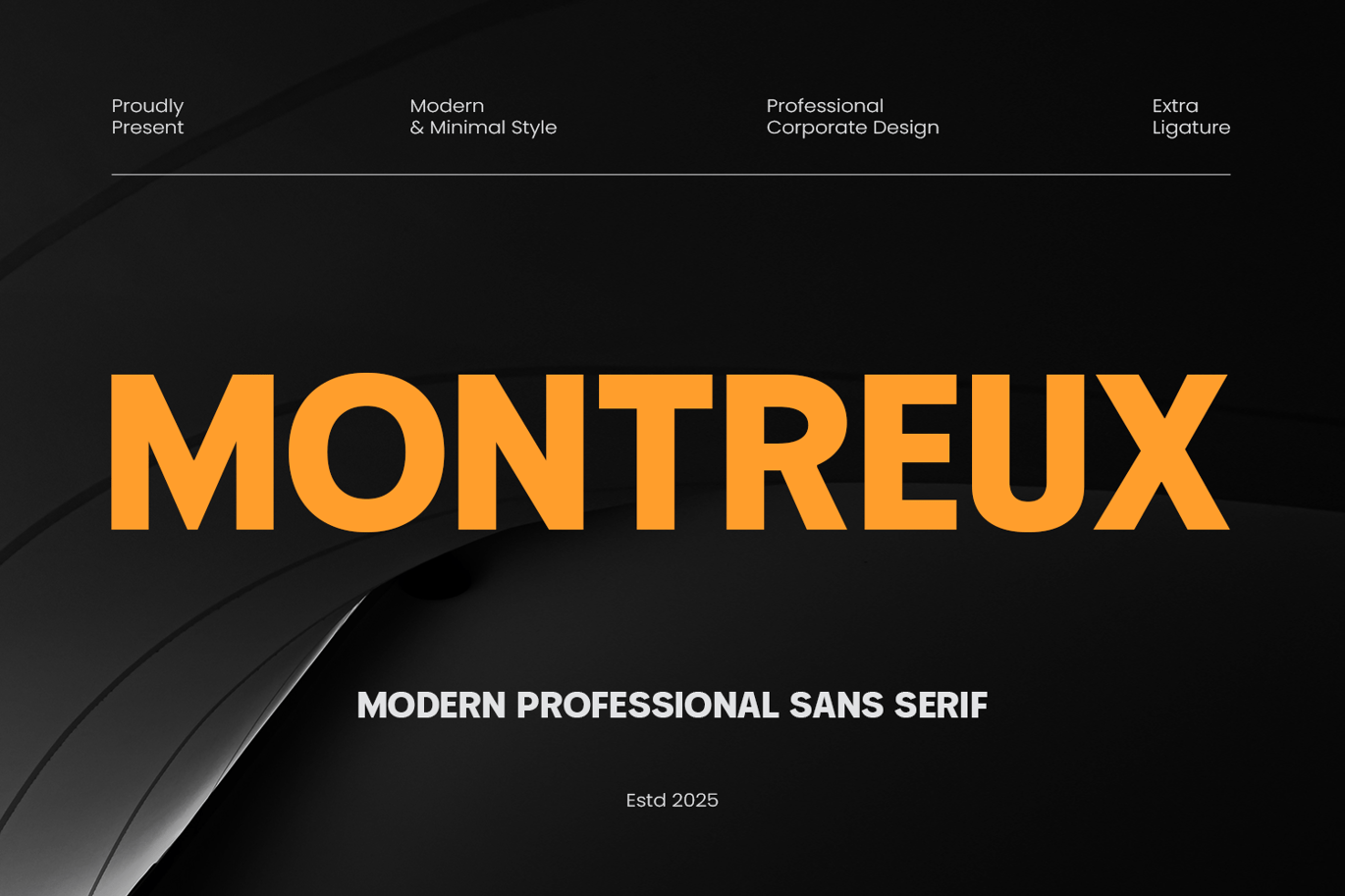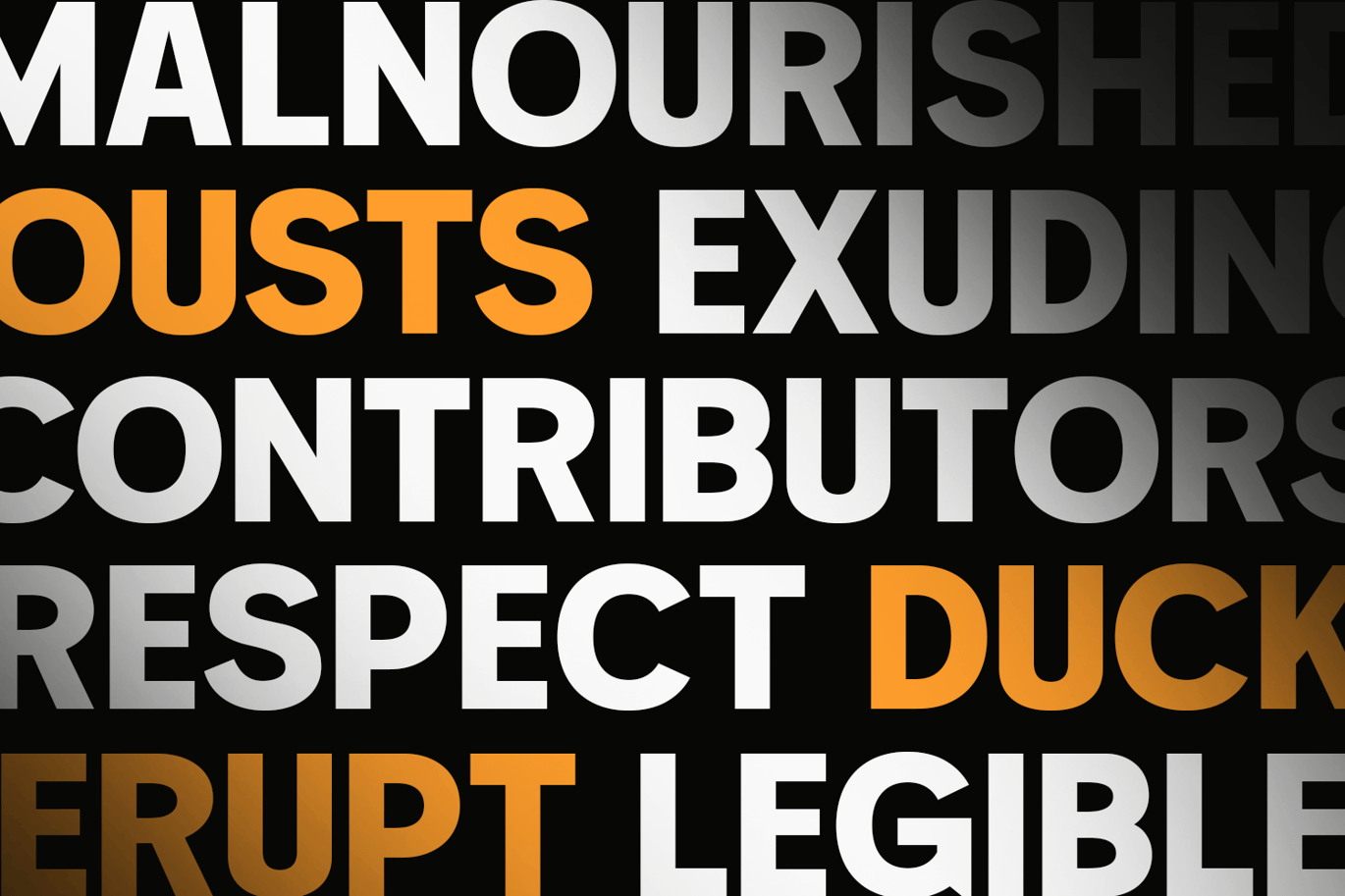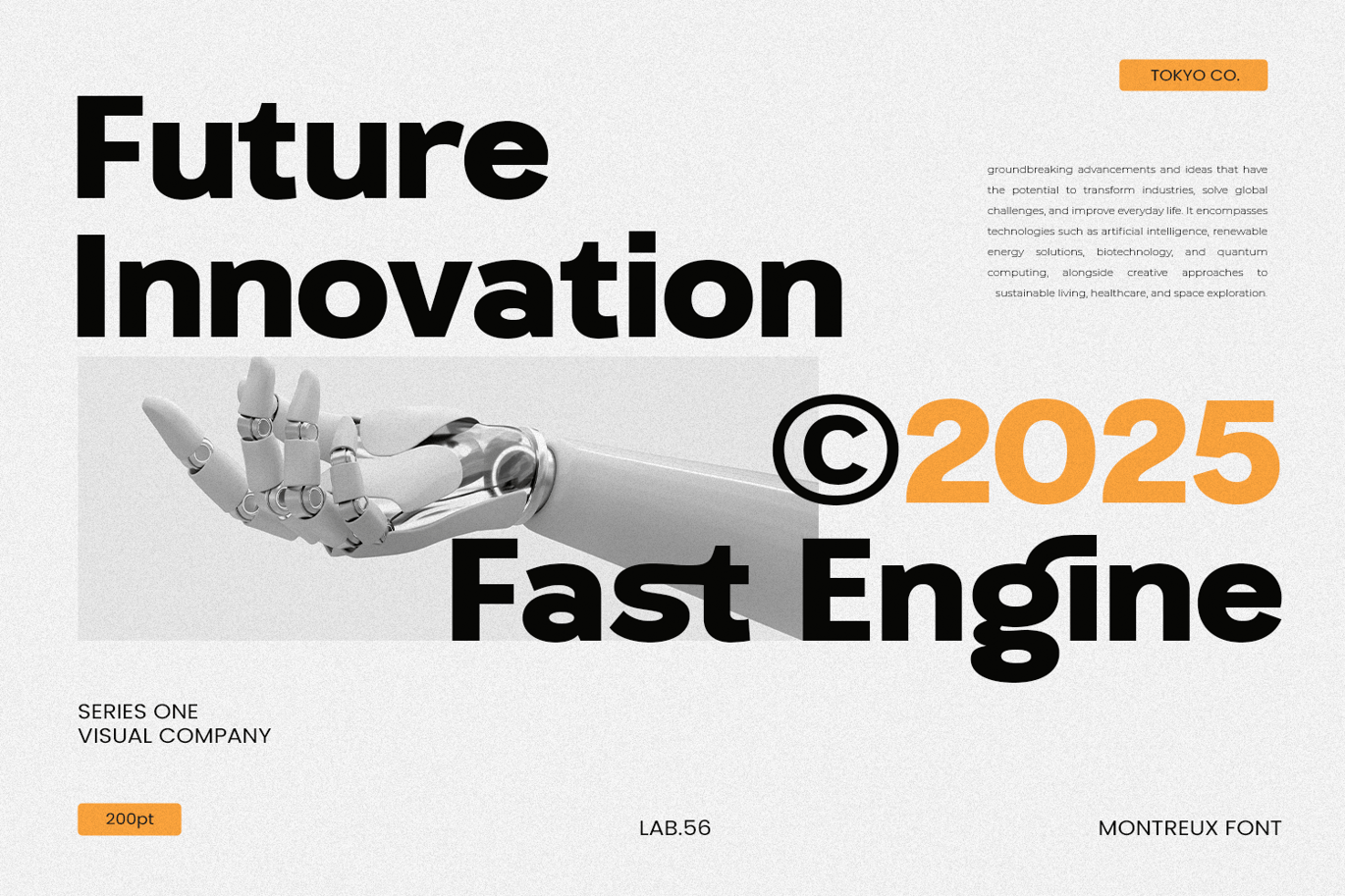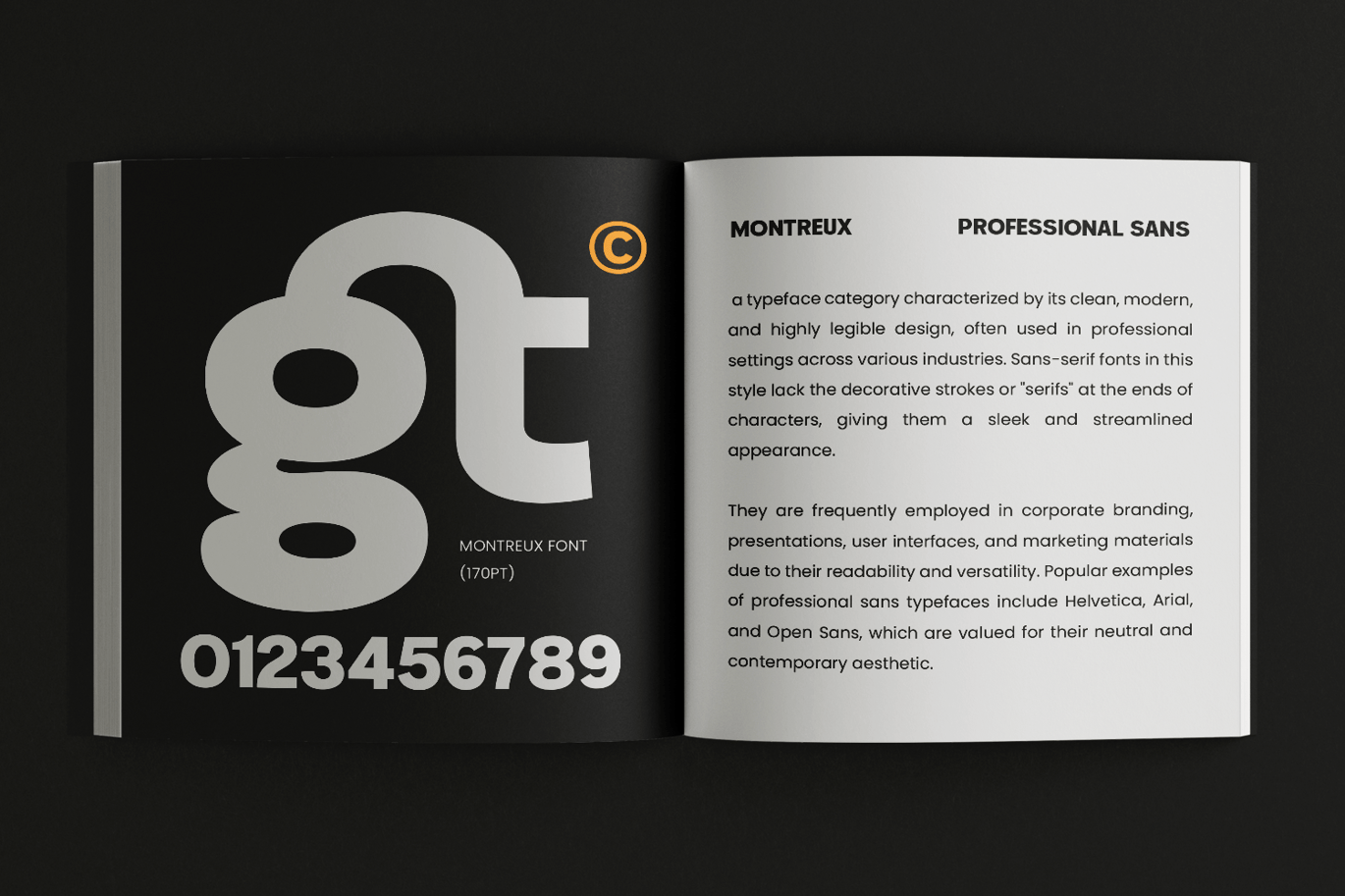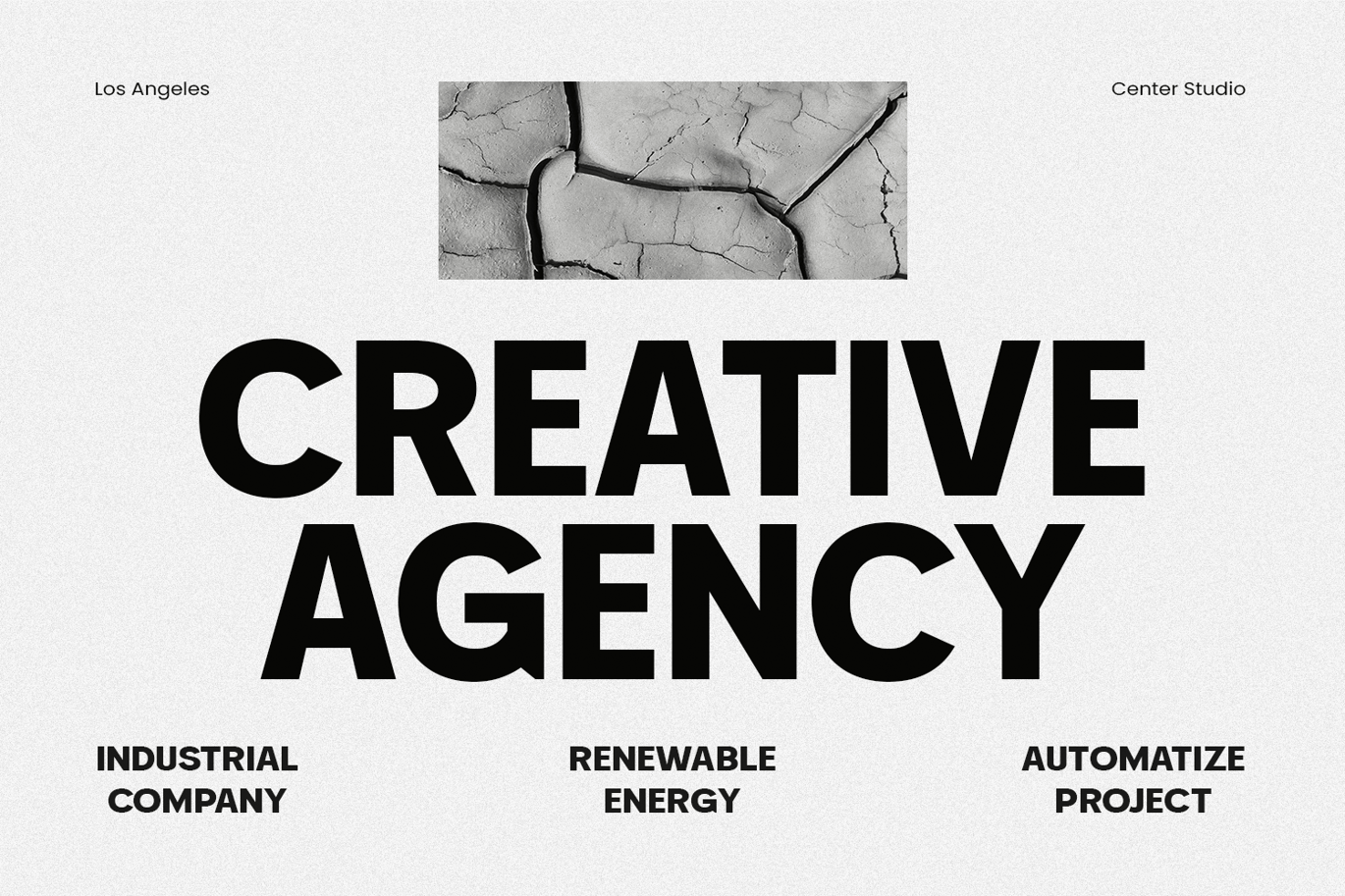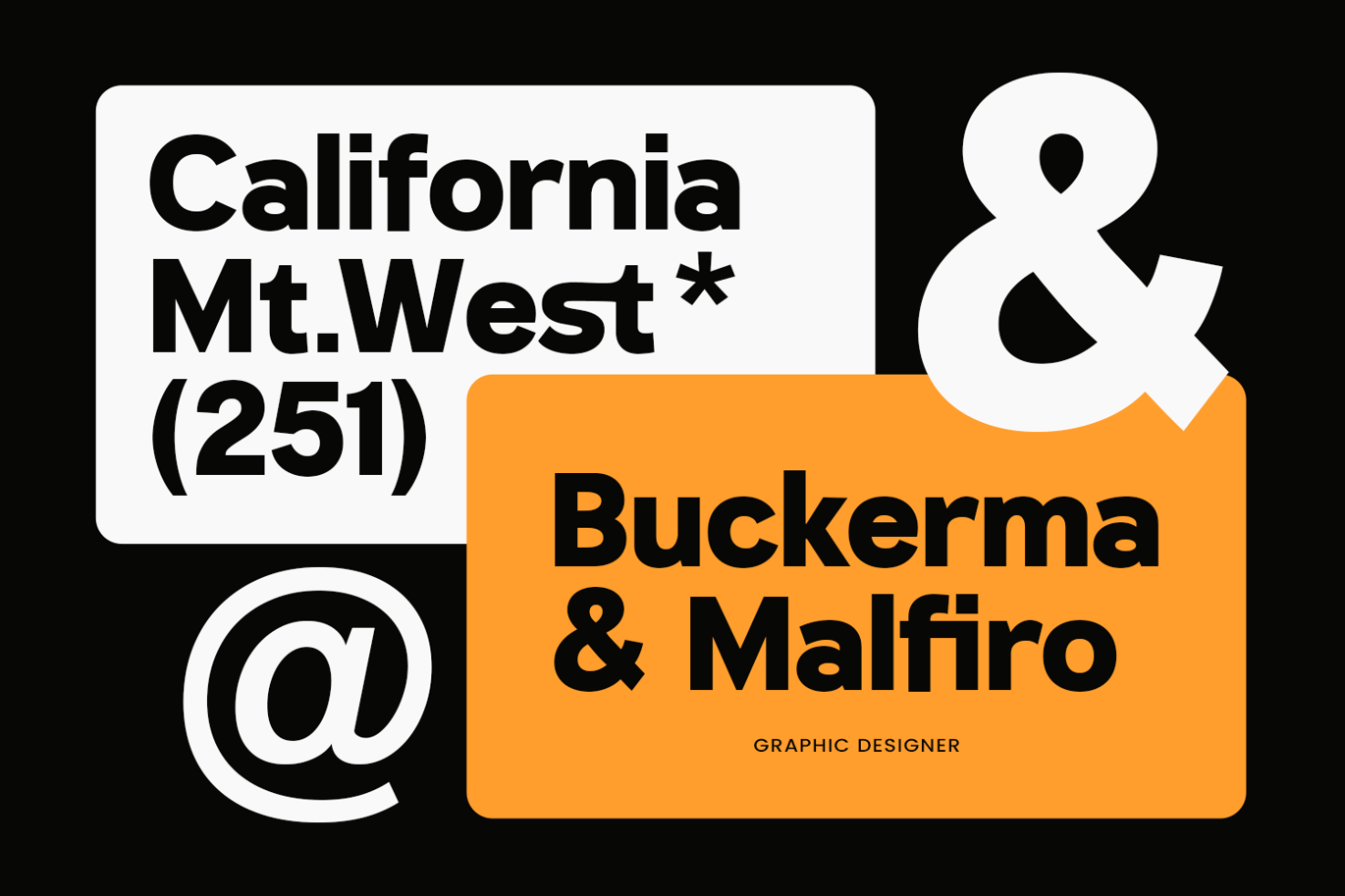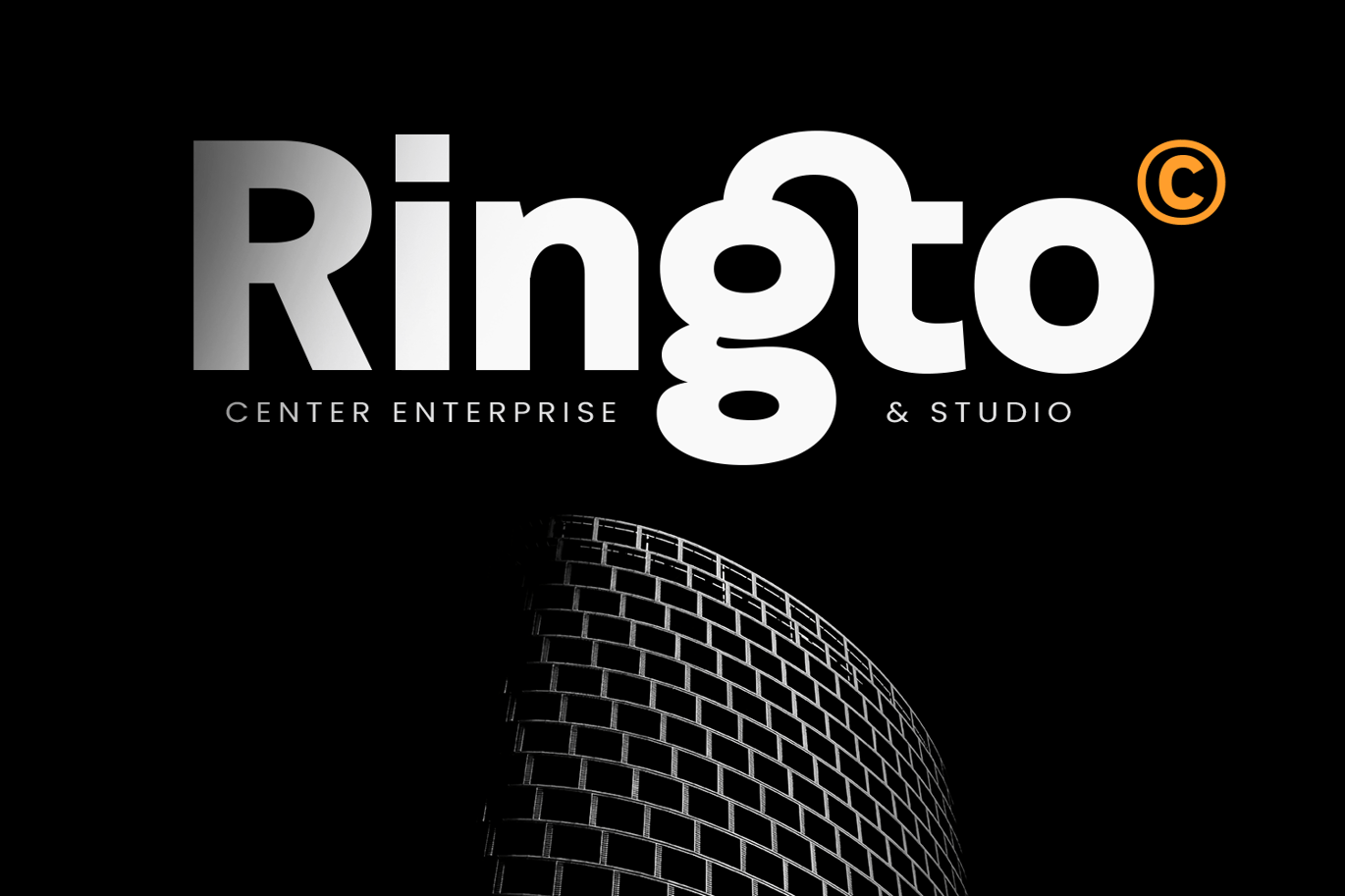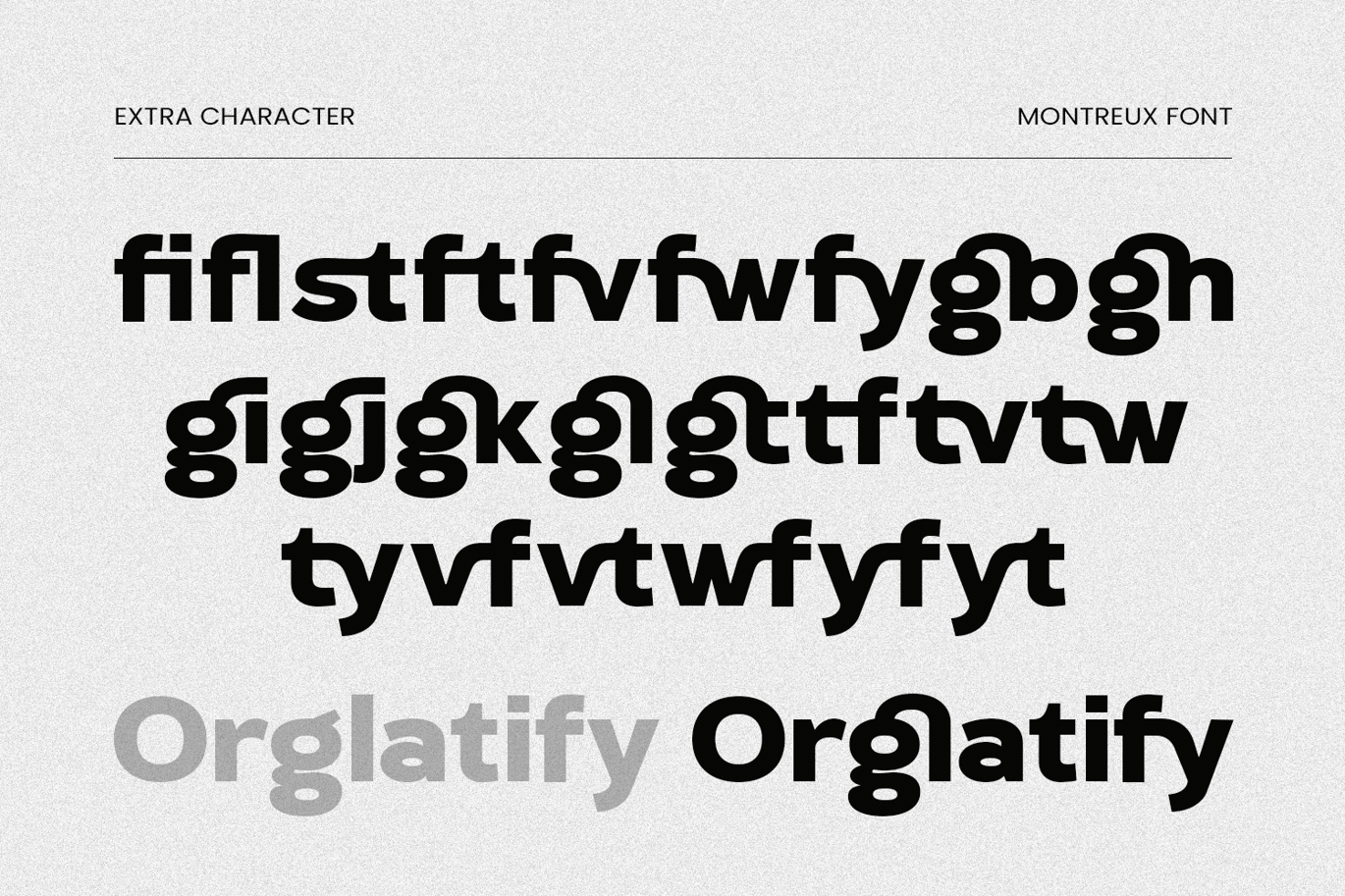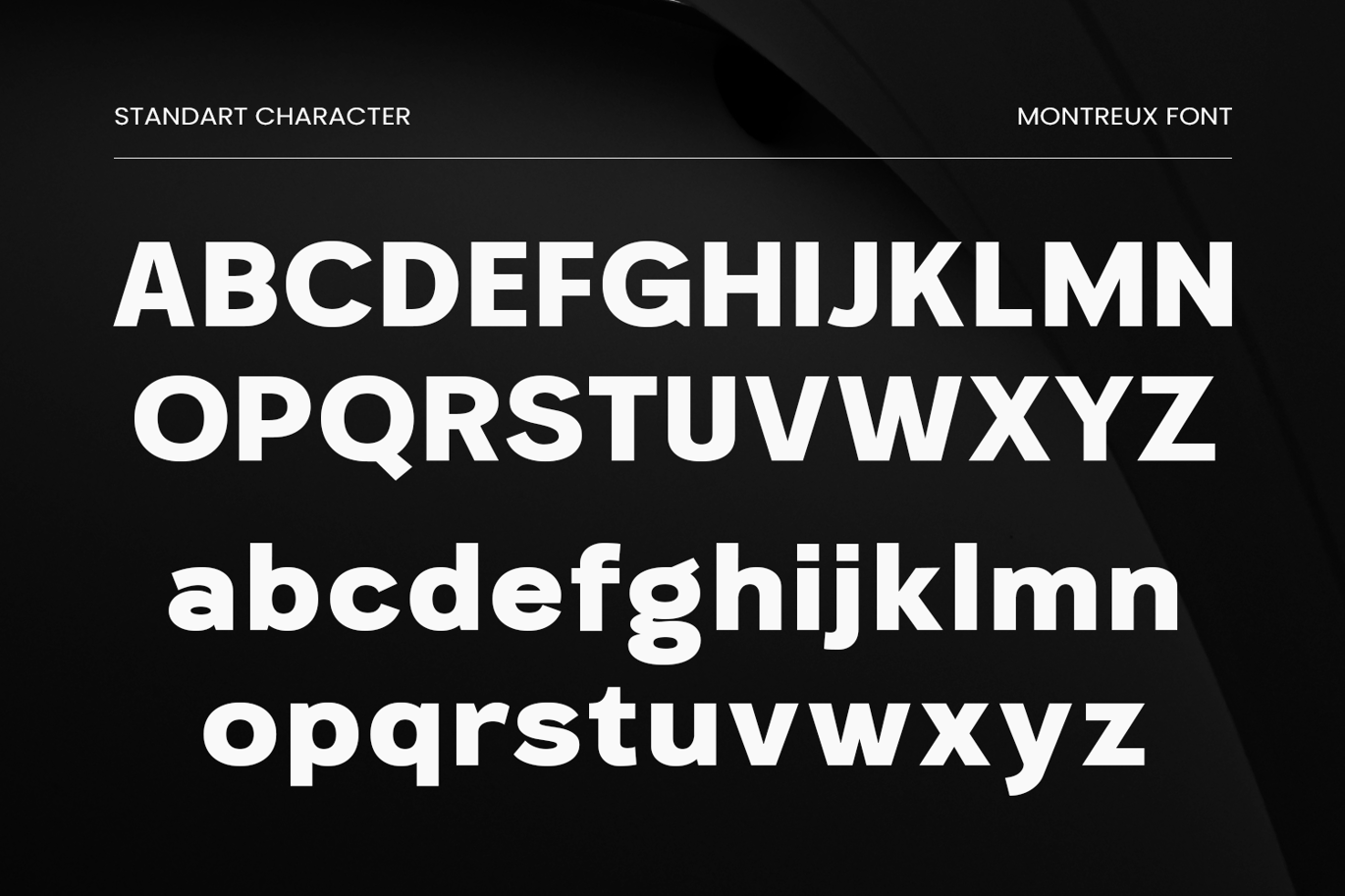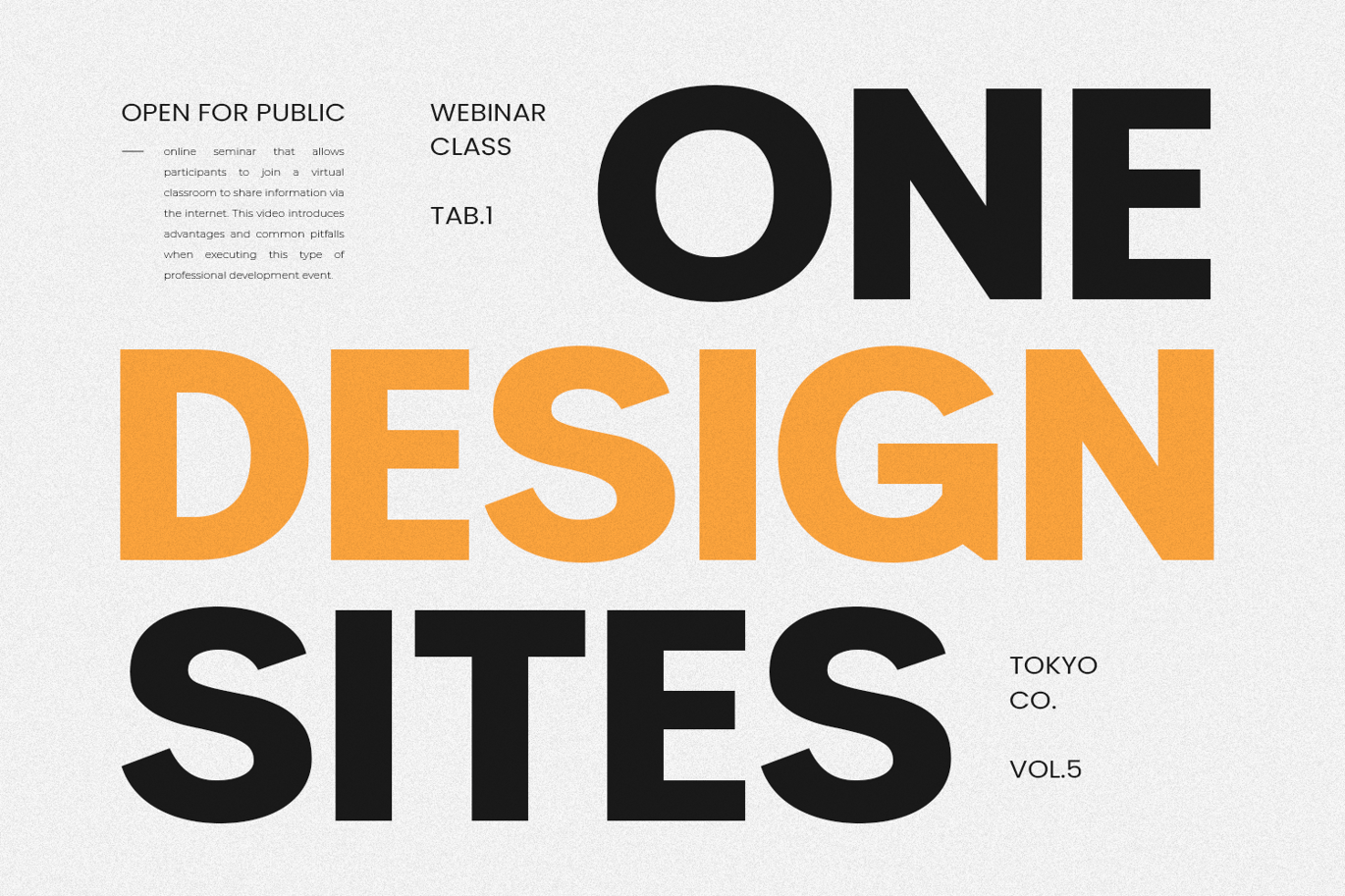
Montreux – Geometric Font
Montreux: A Modern Classic in Typography
Montreux is a bold and modern geometric sans-serif font family that draws inspiration from timeless typefaces like Futura and Avant Garde. With its clean lines, sharp edges, and minimal stroke contrast, Montreux embraces the essence of neo-grotesk design, making it a perfect choice for projects that demand a contemporary and professional look. Its large x-height ensures excellent readability, even at smaller sizes, while the geometrical letterforms lend a sleek and sophisticated vibe to your design.
Whether you’re working on a branding project, designing a website, or creating eye-catching advertisements, Montreux delivers unmatched versatility. Its structured yet stylish design fits effortlessly into various creative contexts—be it magazines, posters, logos, signage, or even fashion lookbooks. The font’s adaptability makes it a go-to choice for both digital and print mediums, seamlessly blending elegance and practicality.
Montreux’s versatility doesn’t stop there. It’s equally well-suited for business-oriented materials like stationery, packaging, and corporate flyers as it is for more creative applications like fashion magazines and UI/UX designs. Its clean, geometric aesthetics make it a standout choice for headlines, covers, and agency presentations. Whether you’re crafting a bold advertisement or a minimalist lookbook, Montreux ensures your message is delivered with clarity and style.